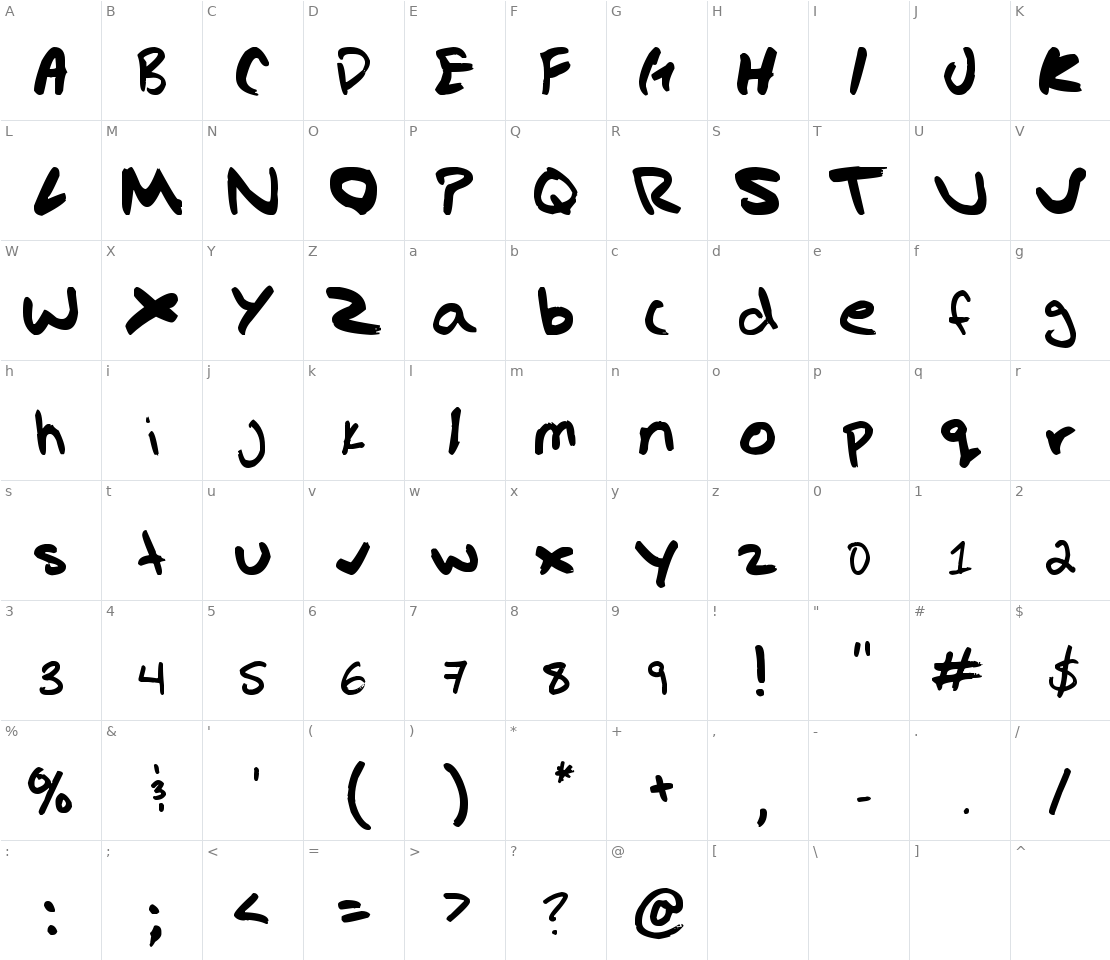
Gregs hand
Gregs hand is exactly what it sounds like: Gregory Gould's own handwriting turned into a font. The rounded, marker-style letterforms have a natural looseness that feels genuinely personal rather than designed, with the kind of casual inconsistencies that make handwritten type believable. It works well for informal branding, personal blogs, letters, or anywhere you want type that reads like someone actually wrote it.